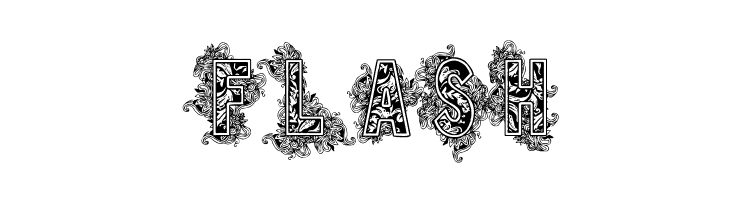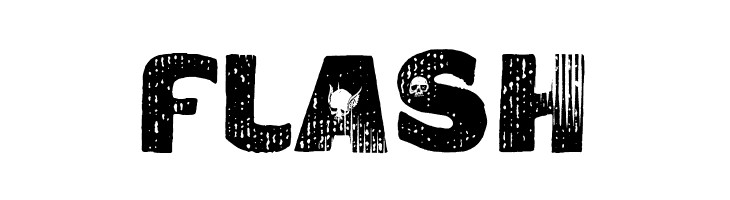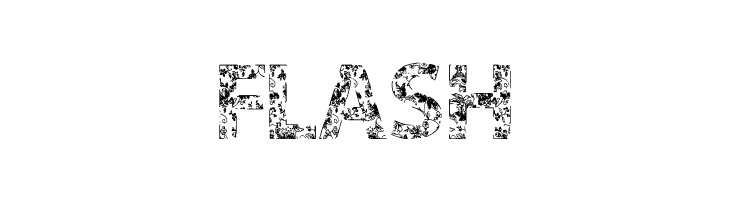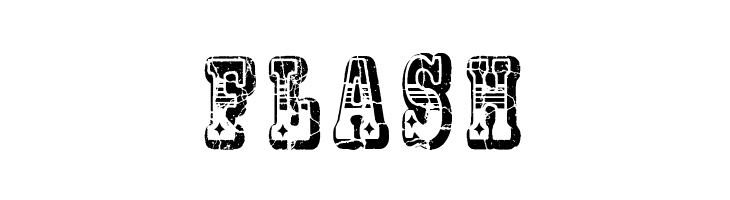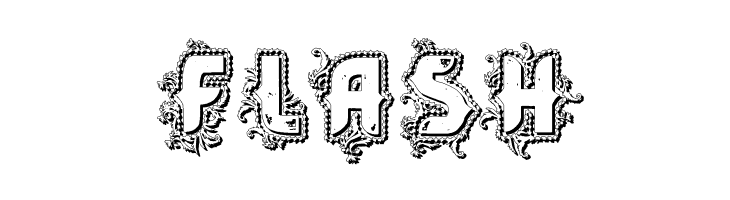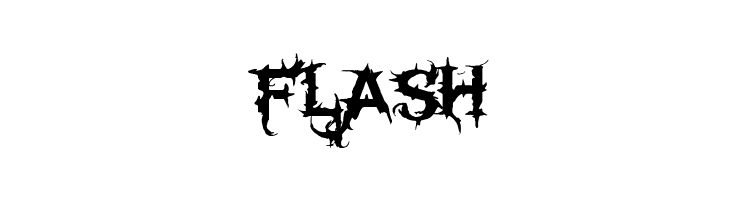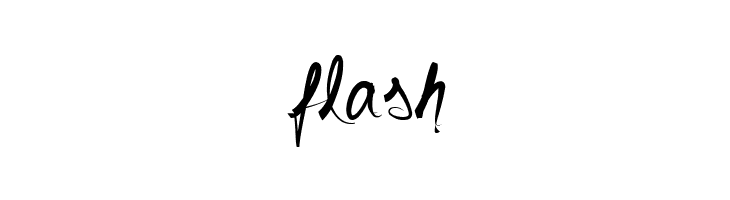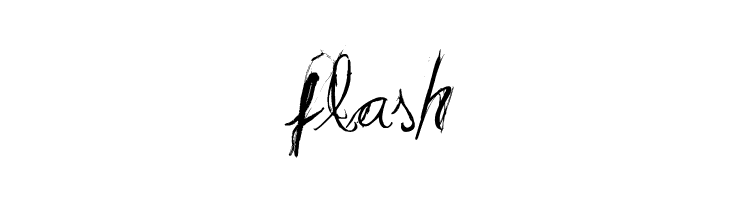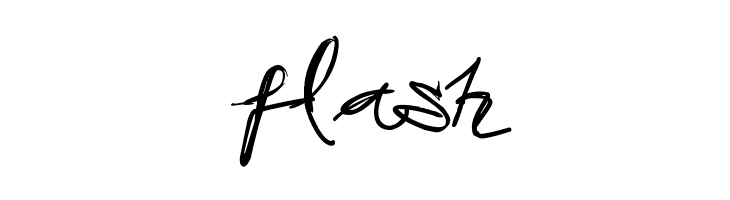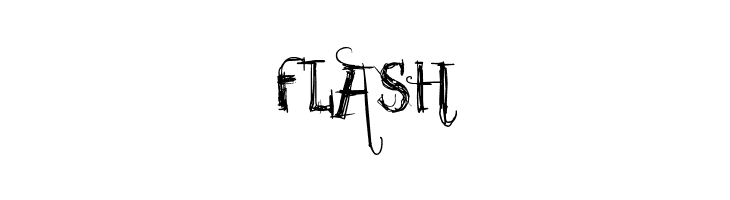
A bold, decorative font with intricate embellishments and a rebellious style.
An ornate, decorative font with intricate floral embellishments.
A decorative font with ornate swirls and embellishments, offering a bold and elegant appearance.
A bold, distressed font with a textured, grunge aesthetic.
A decorative font with intricate floral patterns within each character.
A bold, decorative font with a distressed, grunge texture.
A bold, decorative font with intricate, organic embellishments and a gothic flair.
A bold, thorny decorative font with sharp, intricate details.
A decorative font with elaborate swirls and gothic-inspired embellishments.
A whimsical and artistic font with elaborate decorative swirls.
An expressive, artistic font with fluid, hand-drawn strokes.
A decorative and artistic font with bold, expressive letterforms and a dynamic style.
A decorative, hand-drawn font with swirling lines and sharp edges.
A bold, graffiti-inspired font with a rough, brush-like texture.
A grungy, hand-drawn font with a textured, sketch-like appearance.
A bold, 3D shadow font with a rugged, textured edge for dramatic impact.
A dynamic and artistic font with swirling, fluid strokes and a calligraphic style.
A bold, textured font with a distressed, three-dimensional style.
A distressed, grungy font with rough edges and a bold, vintage appearance.
A distressed, grunge-style font with a bold, textured appearance.
A bold, impactful font with thick strokes and a modern, decorative style.
A bold, angular font with a modern, geometric style.
A bold, 3D decorative font with sharp serifs and high contrast.
A bold, distressed font with a grunge texture, perfect for edgy designs.
A bold, distressed stencil-style font with a rugged, military-inspired look.
A bold, distressed 3D font with a rugged, military-inspired aesthetic.